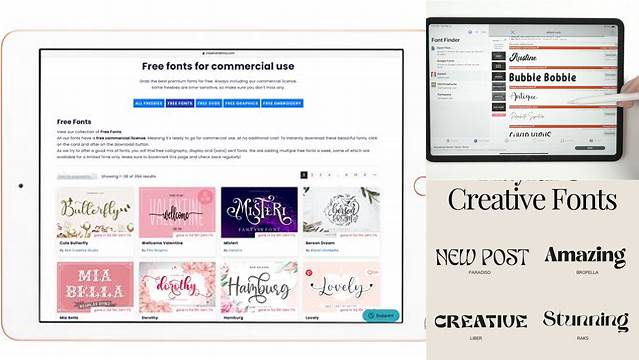
Top Fonts For IPad Pro: Enhance Your Creative Work
Hey everyone! If you're an iPad Pro user, you know it's a powerhouse for creativity. From sketching and note-taking to design and writing, the iPad Pro does it all. And guess what? Choosing the right fonts can seriously level up your game. Finding the best fonts for iPad Pro isn't just about aesthetics; it’s about boosting readability, expressing your style, and making your work pop. So, let's dive in and explore some awesome font options that'll make your iPad Pro experience even better! We'll look at everything from classic serifs to sleek sans-serifs and fun display fonts. Get ready to find your perfect font pairings!
1. Understanding Font Types: Serif vs. Sans-Serif on Your iPad Pro
Alright, before we jump into specific fonts, let's quickly break down the two main families: serif and sans-serif. Knowing the difference will help you choose the best fonts for your iPad Pro and understand why certain fonts work better in different contexts. Serif fonts have those little decorative strokes (serifs) at the ends of the letters. Think of them as the fancy, traditional ones. They often feel more classic and formal, which can be great for body text in longer documents or when you want to give your work a polished vibe. On the iPad Pro, serifs like Times New Roman, Georgia, or even a beautifully designed font like Garamond can bring a touch of elegance to your notes or presentations. They tend to be highly readable in print, and on an iPad Pro, they can add a touch of sophistication. However, serifs might not always be the best choice for everything. If you are working on something more modern or need something to be readable at smaller sizes on the screen, you might want to lean towards a sans-serif.
Sans-serif fonts, on the other hand, don't have those little strokes. "Sans" is French for "without," so these are the "without serifs" fonts. They have a cleaner, more modern look, making them super versatile. They're generally considered more readable on screens, especially at smaller sizes, which is perfect for the iPad Pro. Fonts like Helvetica, Arial, or Open Sans are fantastic choices for everyday use. They're clean, clear, and easy on the eyes. If you are designing a flyer, working on a website mockup, or writing quick notes, a sans-serif font can often be your best bet. It's also worth mentioning that some fonts blur the lines between these categories, such as a font called Slab Serif, which has thick serifs. Experiment with different fonts and try to imagine the font you have selected and how it might look when used in various projects on your iPad Pro.
Ultimately, the best font for you depends on what you are trying to achieve. Maybe you're a student taking notes, or maybe you're a graphic designer. Also, consider the design of your project and the desired mood.
2. Best Fonts for iPad Pro: Top Sans-Serif Choices
Let's get down to the nitty-gritty and check out some of the best sans-serif fonts you can use on your iPad Pro! Sans-serif fonts are incredibly popular because they're clean, modern, and super readable on screens. They work well for everything from notes to presentations to creative projects. Finding the best fonts for iPad Pro often means starting with a solid sans-serif foundation.
Helvetica: Ah, Helvetica. The king of sans-serif fonts. It's clean, neutral, and super versatile. Helvetica is a great all-around choice. It works well for body text, headlines, and pretty much anything else. On the iPad Pro, Helvetica looks crisp and clear, making it perfect for everyday use. Plus, it has a huge range of weights, from thin to bold, so you can fine-tune your typography. It’s an excellent choice for a general-purpose font.
Arial: Arial is a classic sans-serif font and is often compared to Helvetica. Arial offers great readability. It's slightly less refined than Helvetica but still does a great job. Arial is another excellent choice for the iPad Pro, especially if you're looking for something familiar and reliable.
Open Sans: Open Sans is designed by Google and is super popular for web use. It's a highly readable font with a friendly feel. Open Sans is a great option for your iPad Pro, especially if you are focused on creating projects that might also be used on the web. It is very versatile and can be used in various design contexts, from presentations to simple text documents.
Lato: Lato has a slightly more rounded, friendly appearance. It's clean and modern but still has a distinctive personality. Lato is an excellent choice if you want a sans-serif font that is a bit more unique. It is ideal for headings and body text, giving your iPad Pro projects a contemporary feel.
Roboto: Roboto is Google's default font for Android. It is a clean and modern sans-serif font. It is super readable and works really well on screens. Roboto is a solid choice for any project on the iPad Pro.
These are just a few options, but they all offer excellent readability and versatility for your iPad Pro. Experiment and see which ones you like best!
3. Exploring Serif Fonts for Your iPad Pro: Elegance and Readability
Okay, let's move on to serif fonts! If you are looking for a touch of elegance and classic style, serif fonts are where it's at. They have those little decorative strokes (serifs) at the end of the letters that give them a traditional and sophisticated look. Finding the best fonts for iPad Pro sometimes means considering serif fonts for specific projects.
Times New Roman: This is the granddaddy of serif fonts! It's a classic choice and great for body text in longer documents. Times New Roman is clean, readable, and instantly recognizable. It's an excellent choice on the iPad Pro for writing reports or documents where readability is key.
Georgia: Georgia is another classic serif font designed for screen readability. It's slightly bolder than Times New Roman, which can make it easier to read on smaller screens. Georgia is a great option for the iPad Pro, especially if you want a touch of elegance and readability.